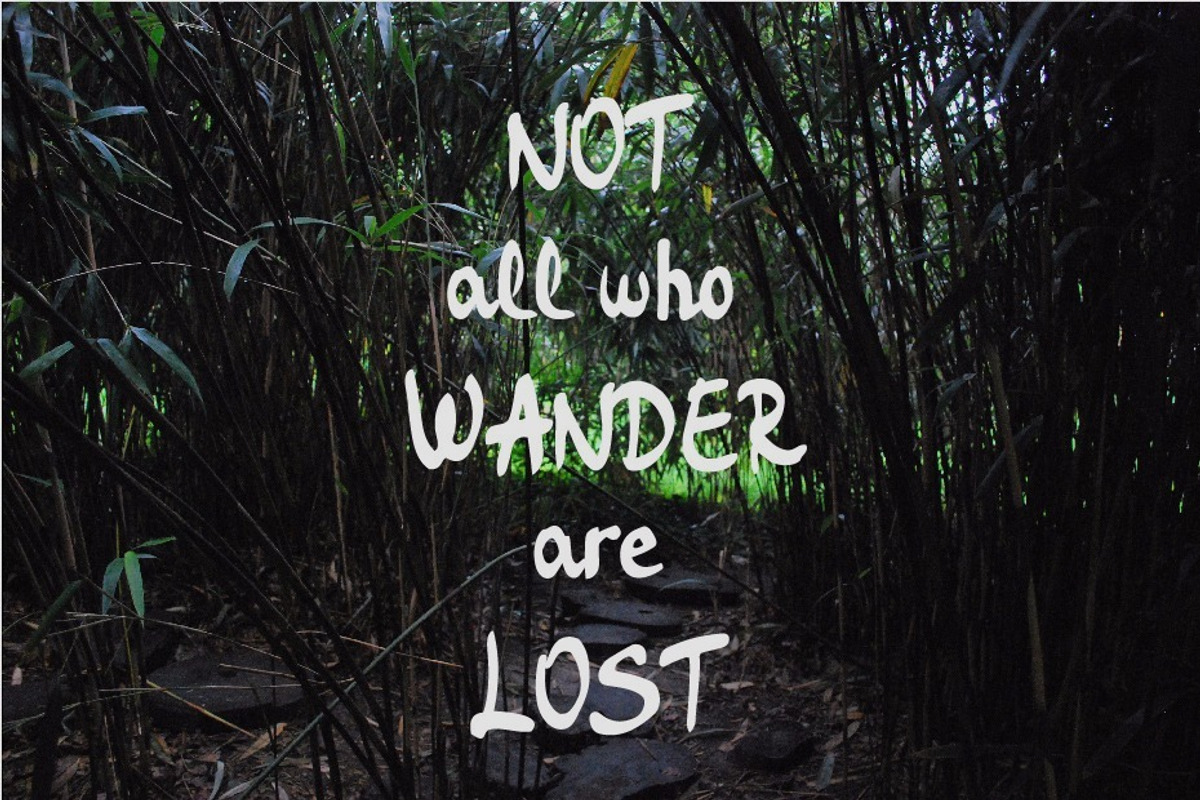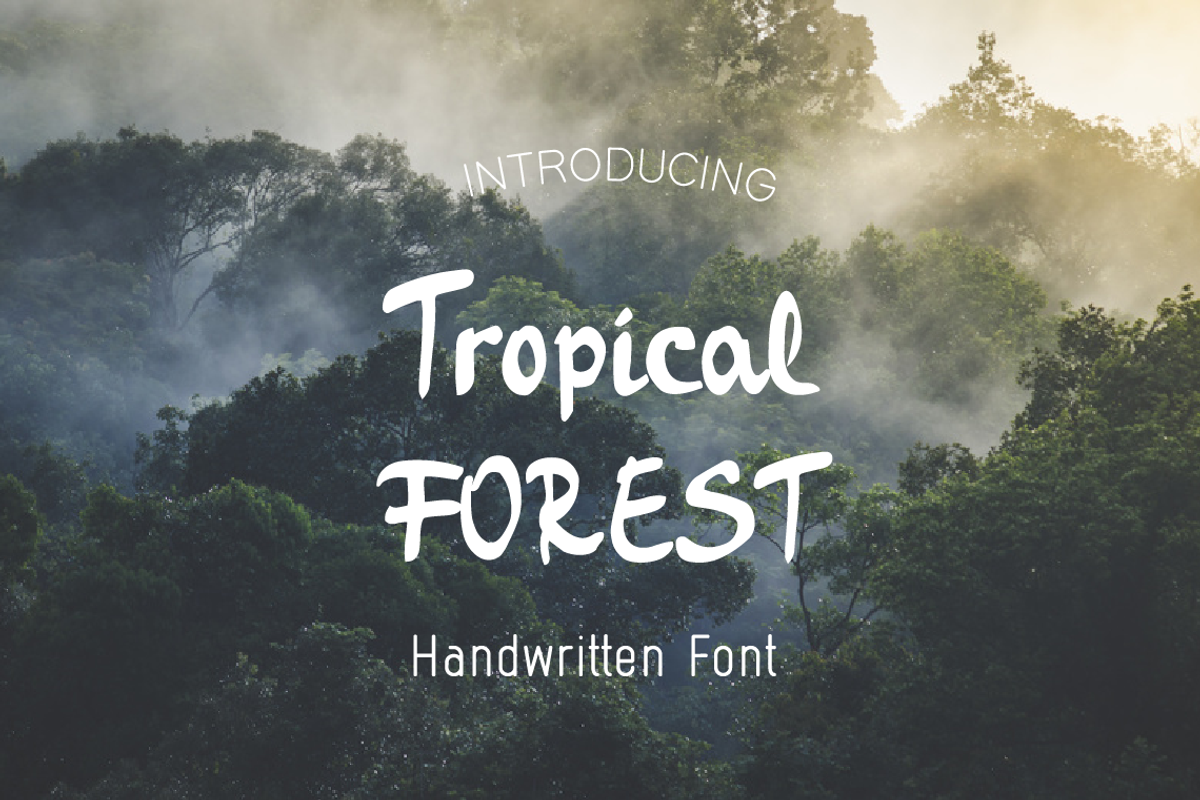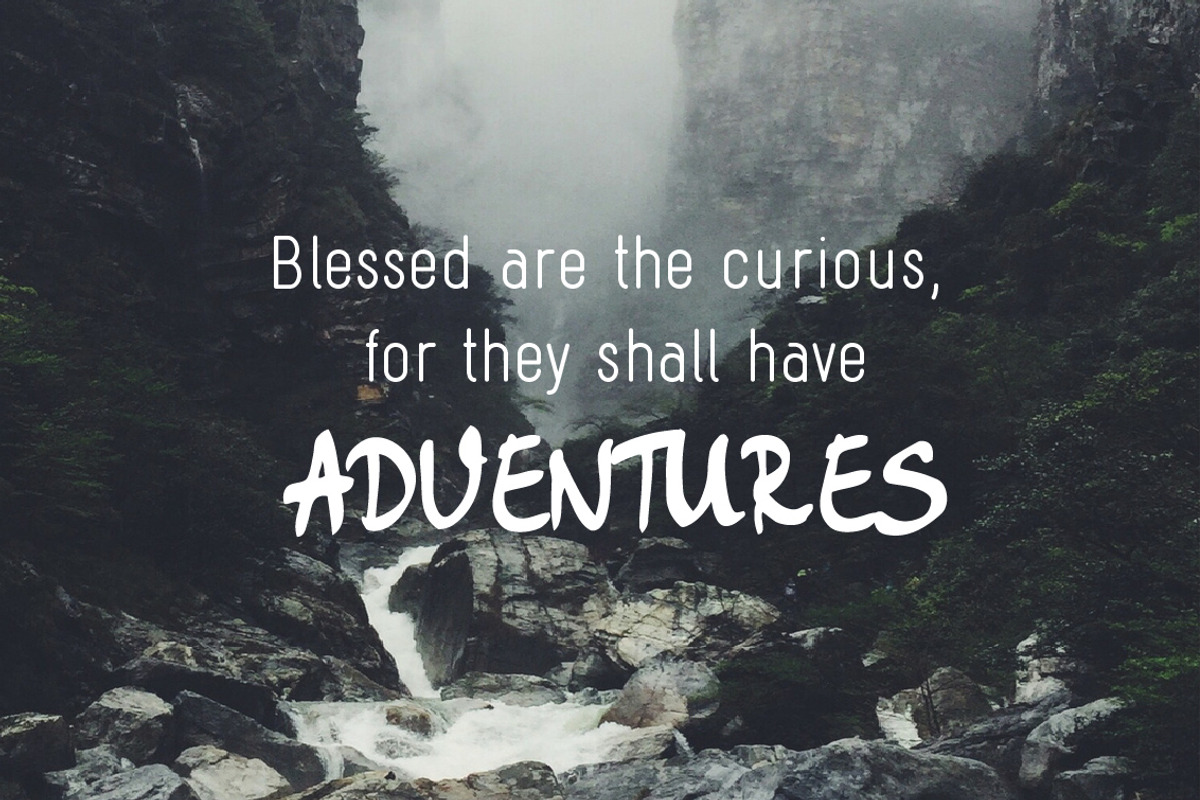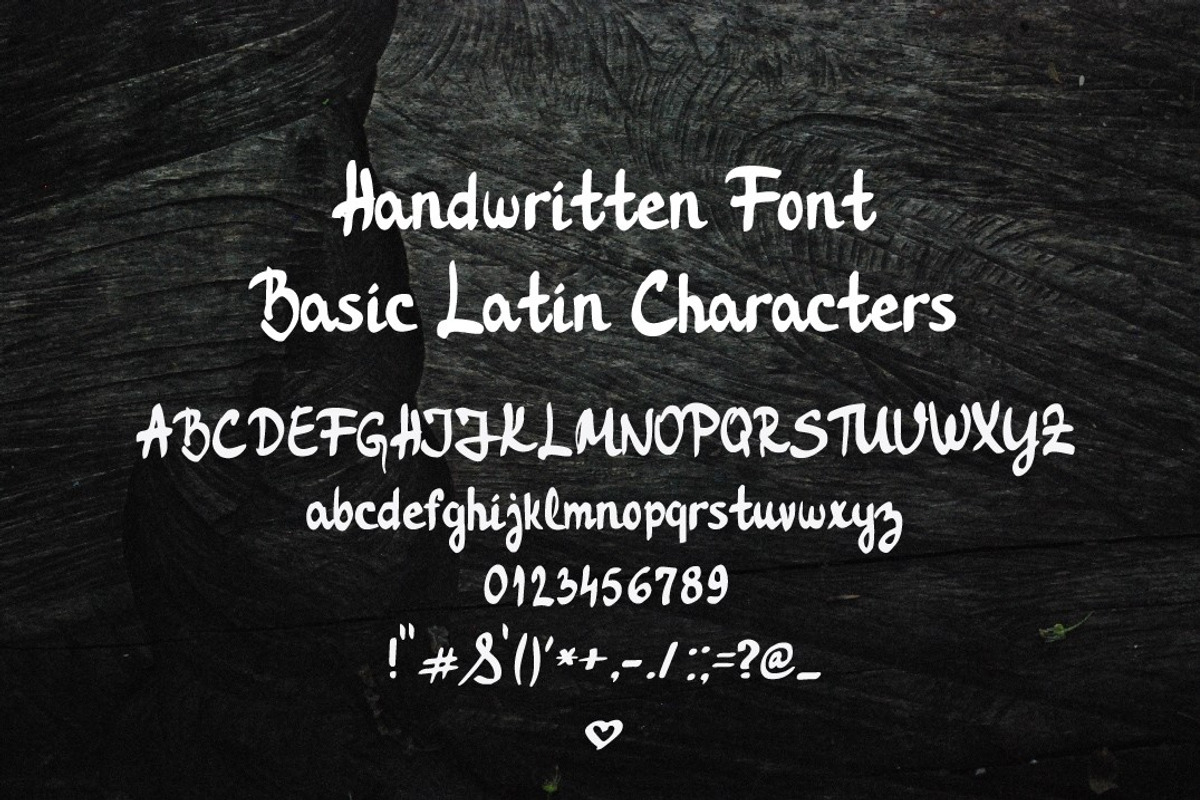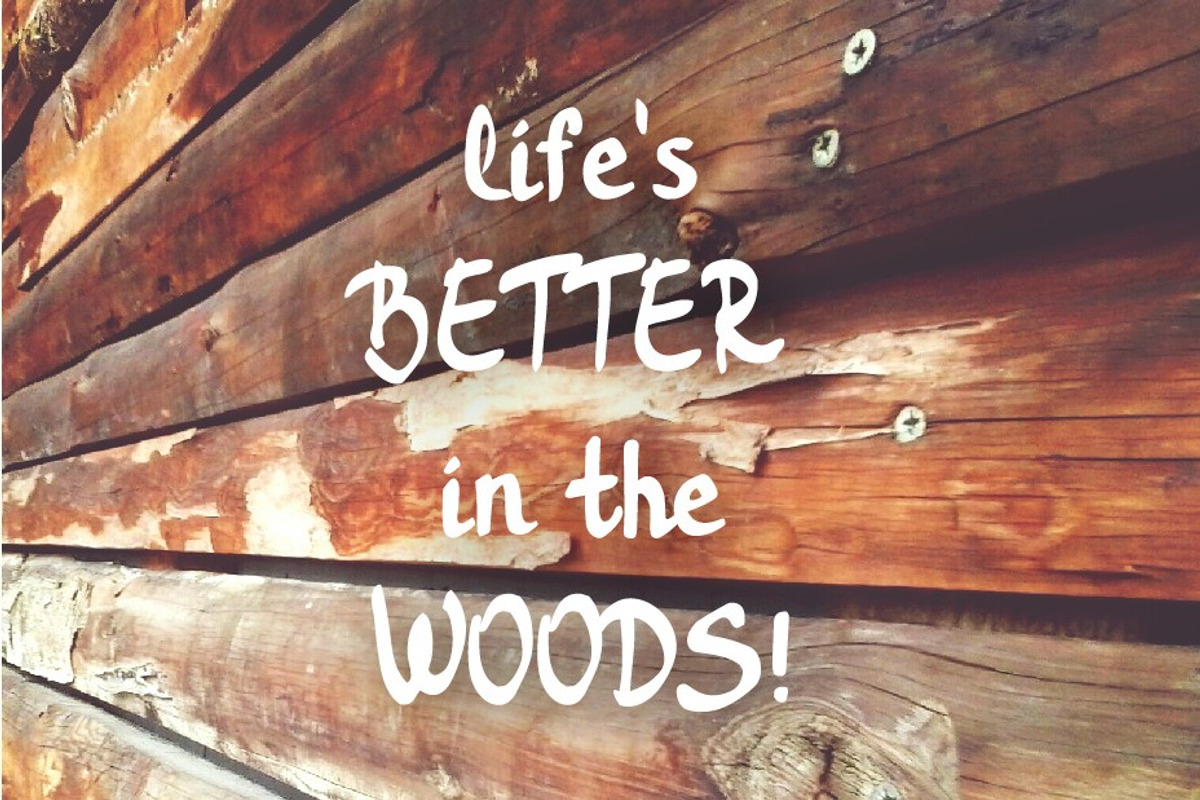
Tropical Forest-Handwritten font
Tropical Forest-Handwritten font by TinyWanderersArt is a font selected for branding, posters, packaging, typography.
- Tropical Forest contains basic Latin characters, lowercase and uppercase, punctuation and numbers.
Tropical Forest-Handwritten font by TinyWanderersArt fits naturally into Branding, posters, packaging, typography.